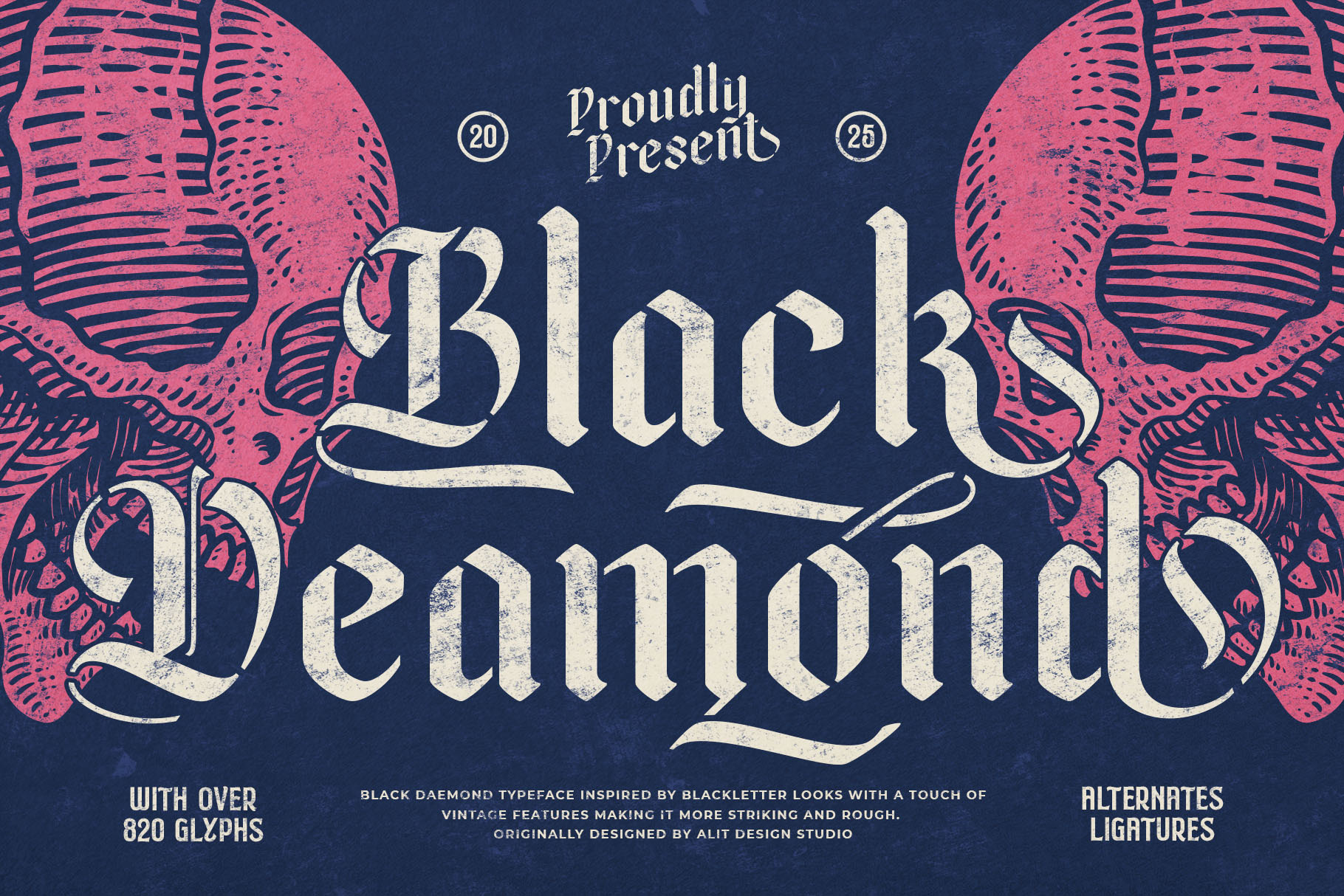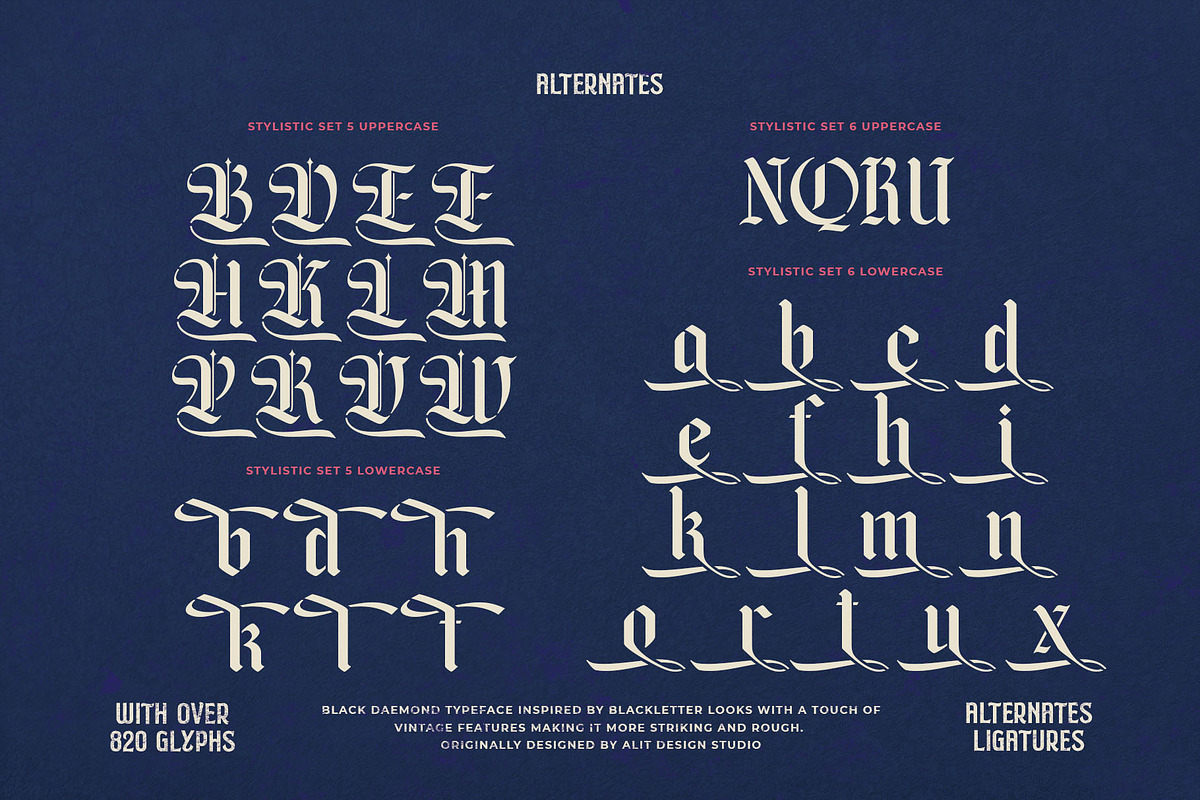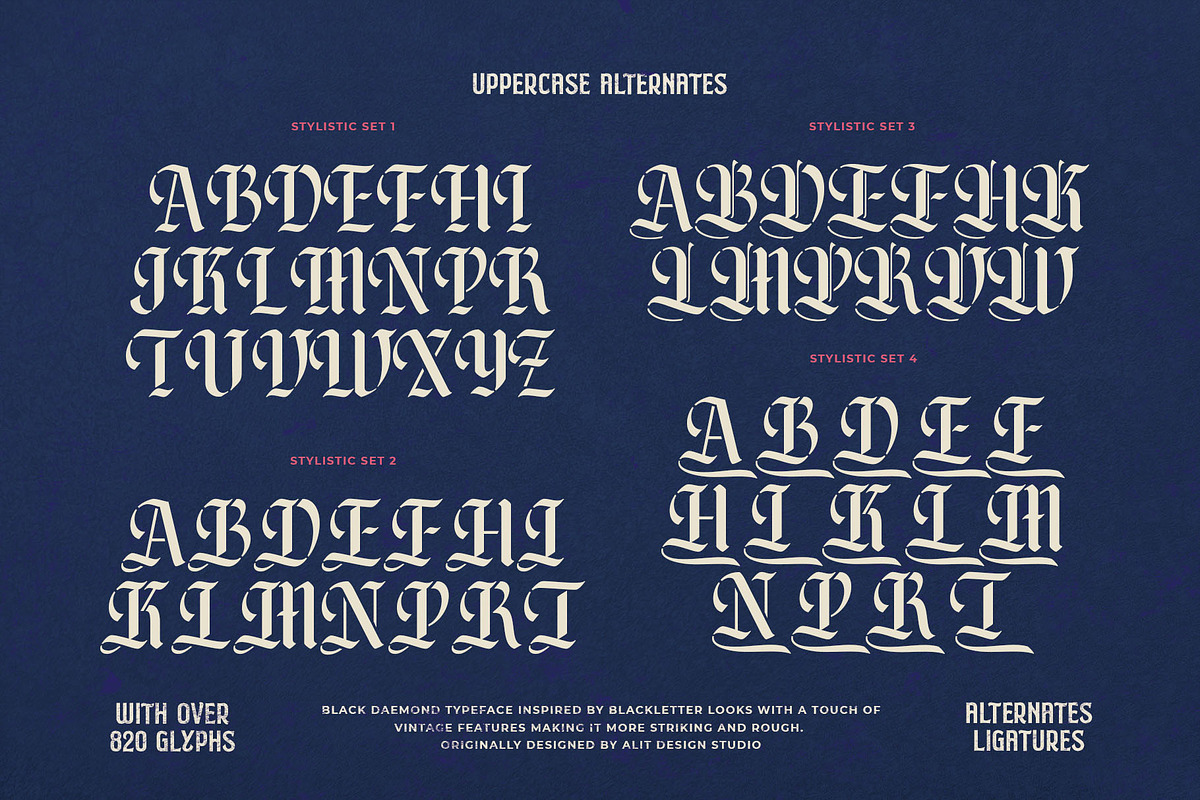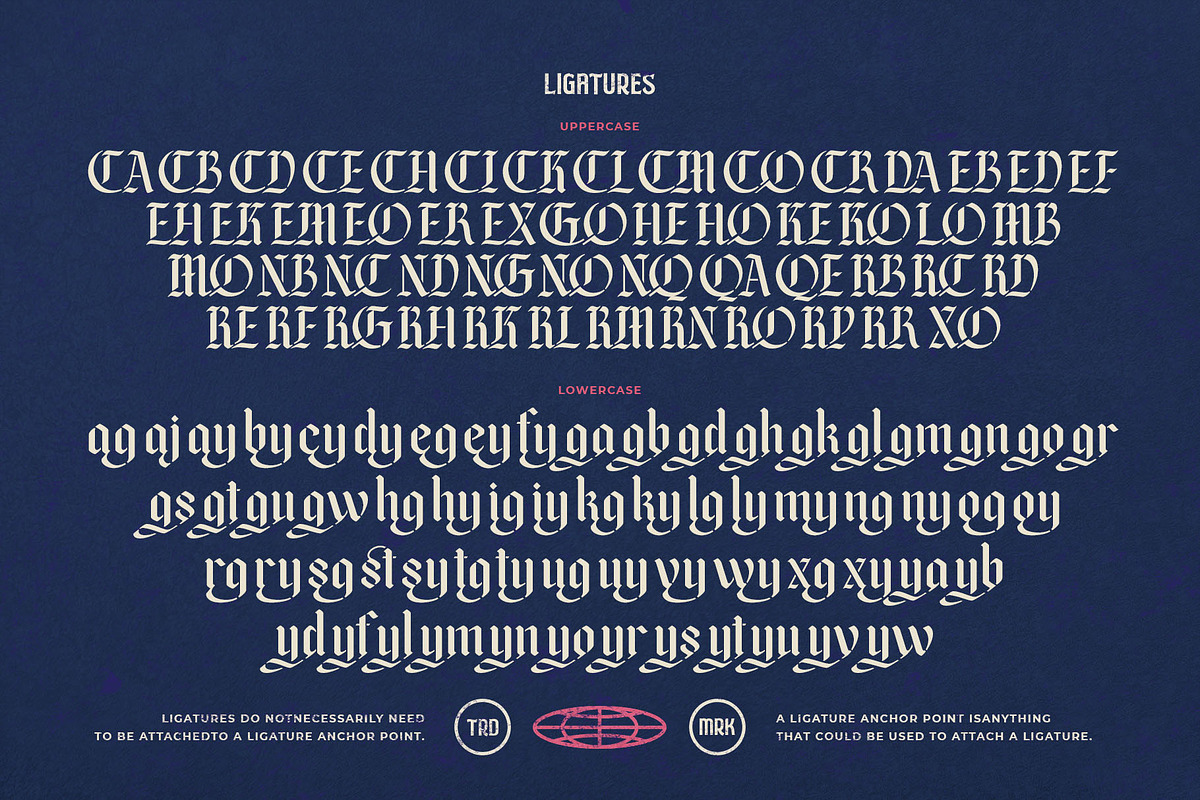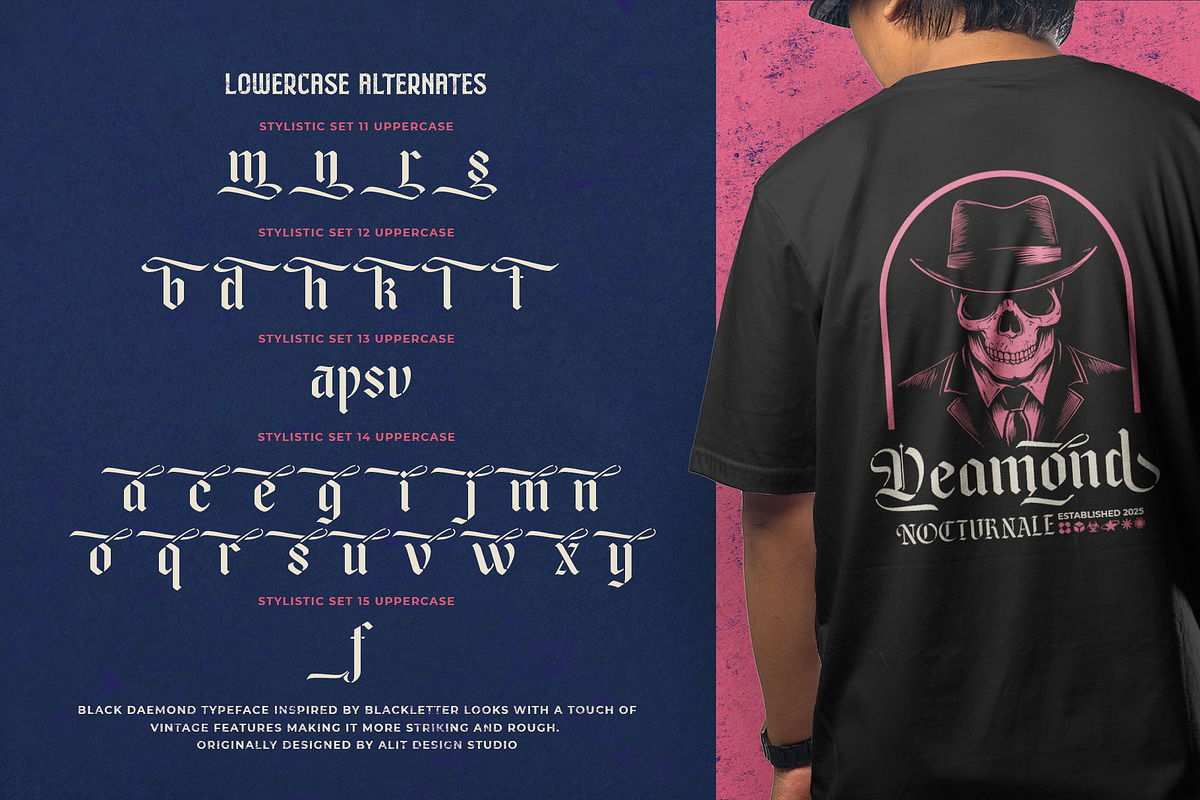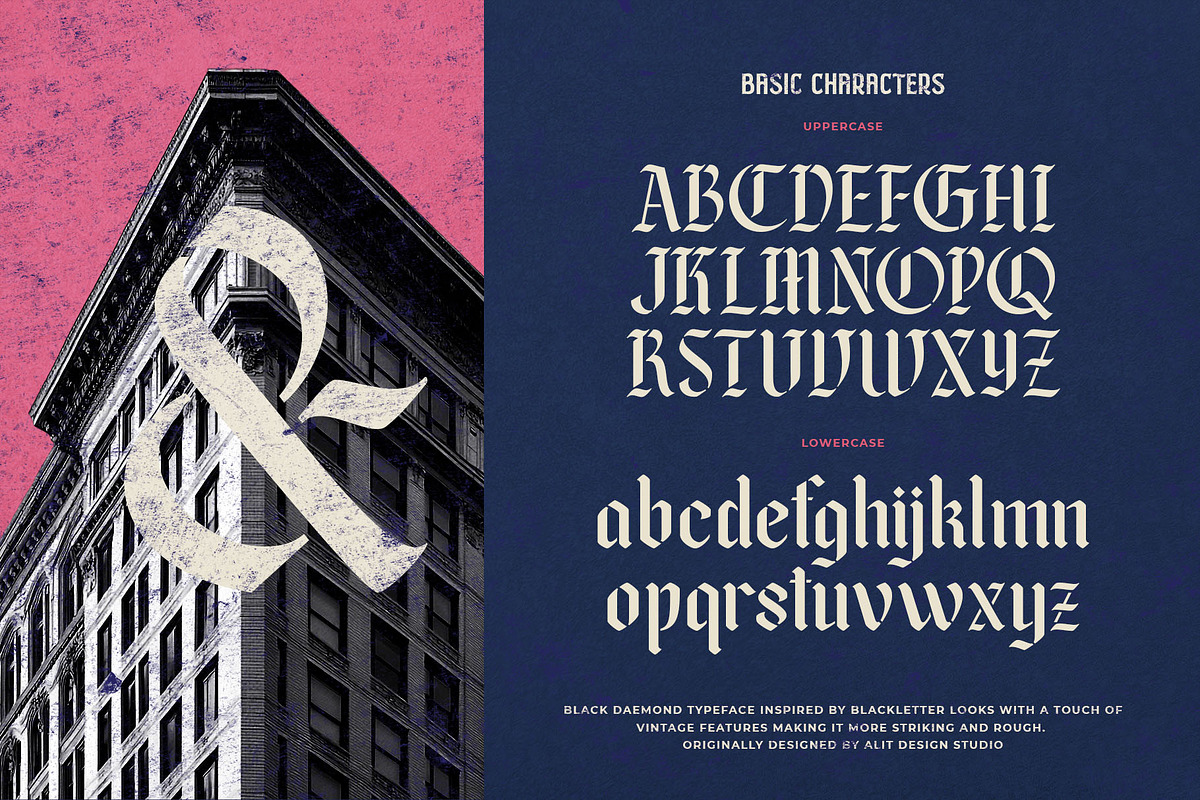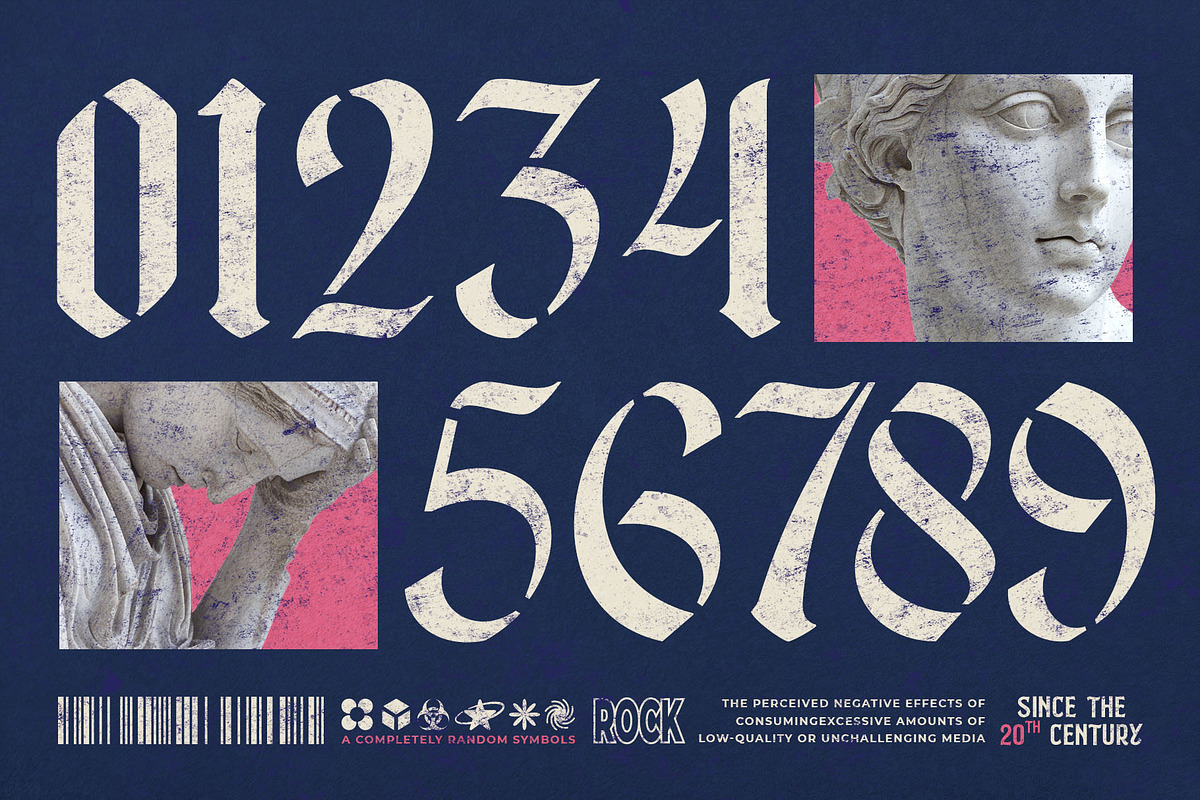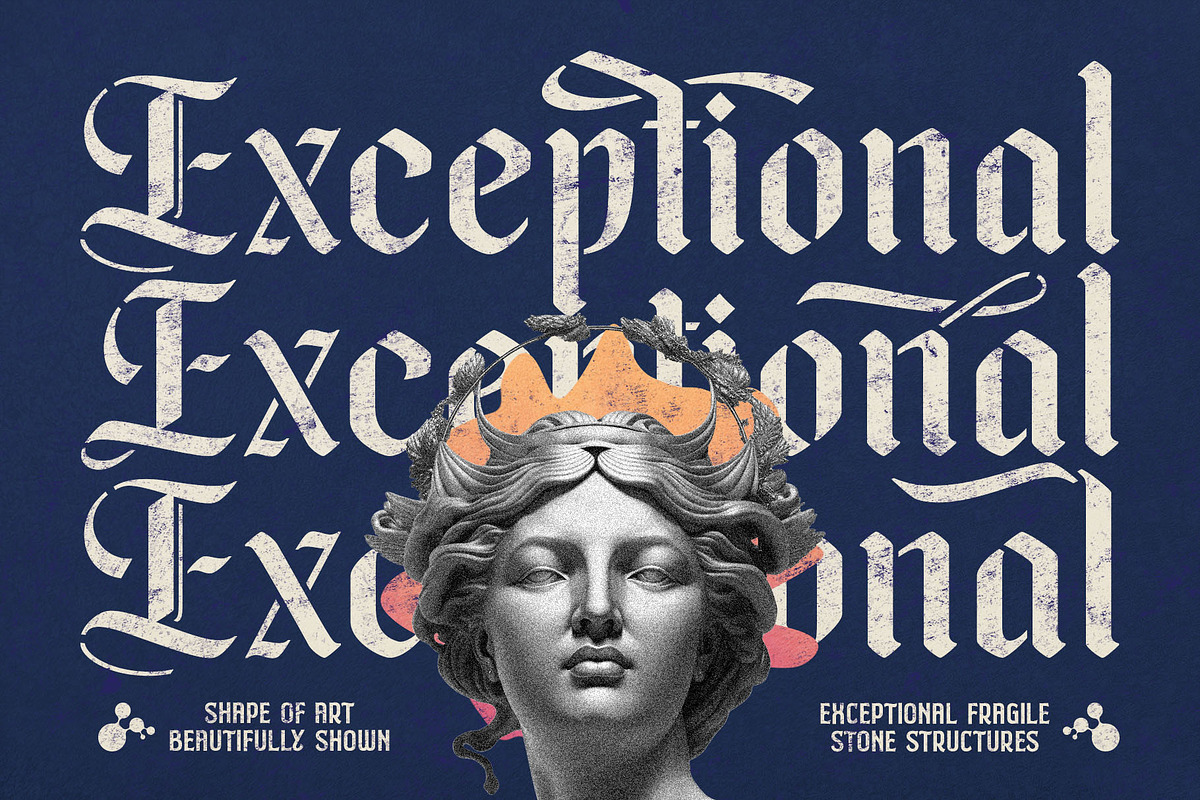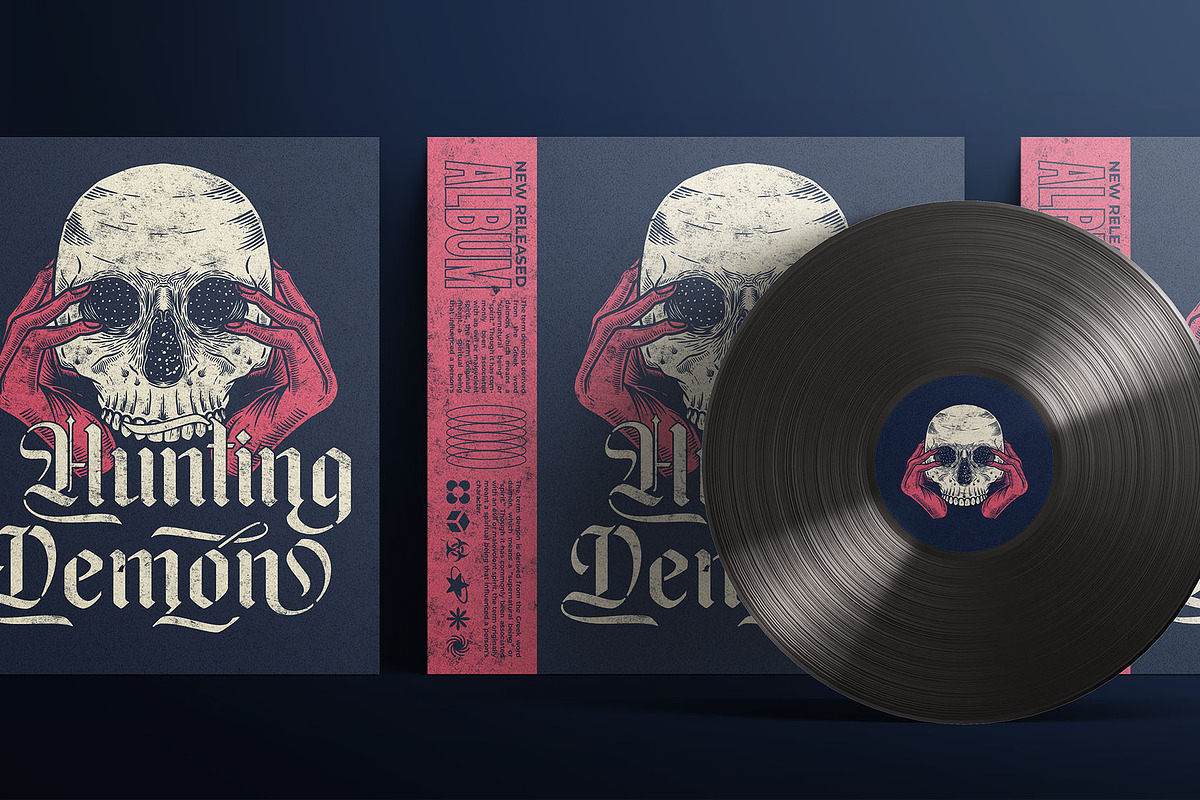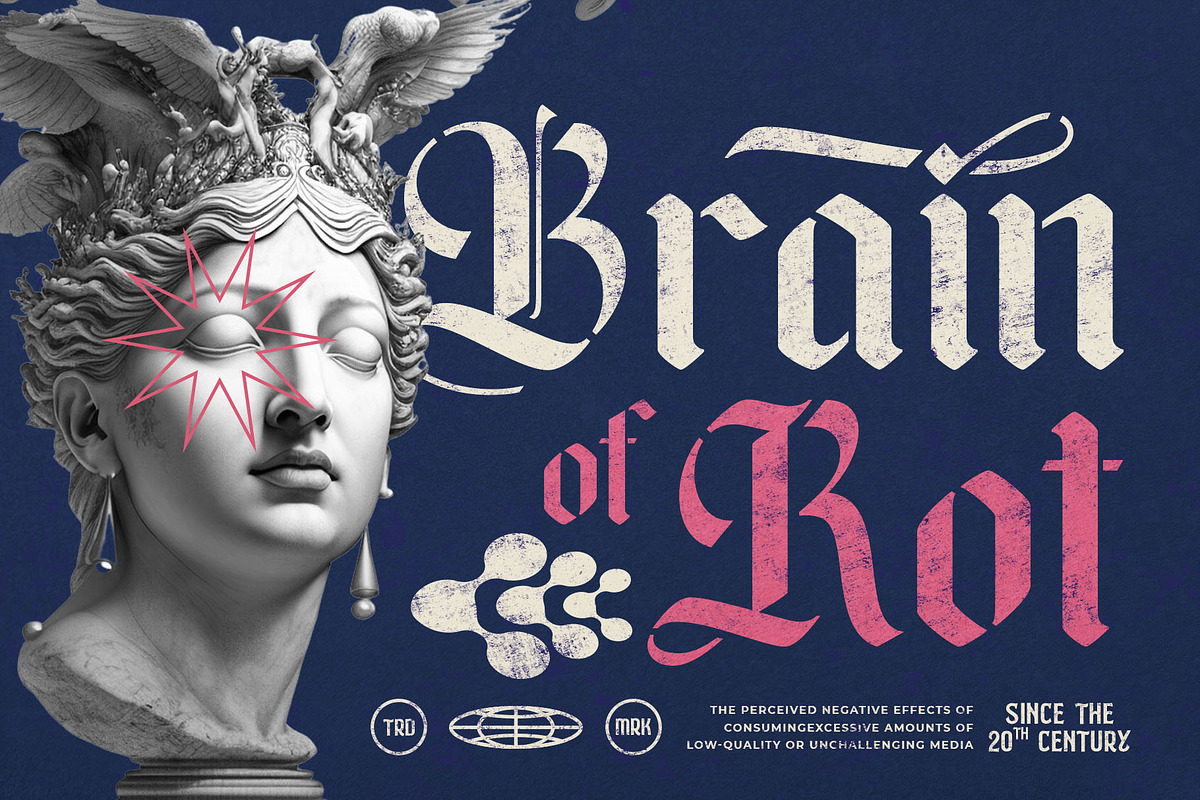
Black Deamond Typeface
A Bold Fusion of Blackletter & Stencil Aesthetics
Introducing Black Deamond, a striking blackletter stencil typeface that blends medieval elegance with a raw, modern edge. Designed for those who seek a bold, rebellious, and vintage gothic style, Black Deamond delivers unmatched versatility with 820 meticulously crafted characters.
🔹 Key Features:
✔ Blackletter Stencil Design – A fusion of old-world calligraphy and industrial stencil aesthetics.
✔ 820 Glyphs – Packed with alternate characters, ligatures, and swashes to customize every detail.
✔ Multilingual Support – Covers a wide range of Latin-based languages.
✔ Vintage & Rough Texture – Designed for posters, apparel, branding, tattoos, and gothic-inspired artwork.
Elevate your designs with the raw power and mystique of Black Deamond. Perfect for band logos, dark-themed branding, album covers, and more.